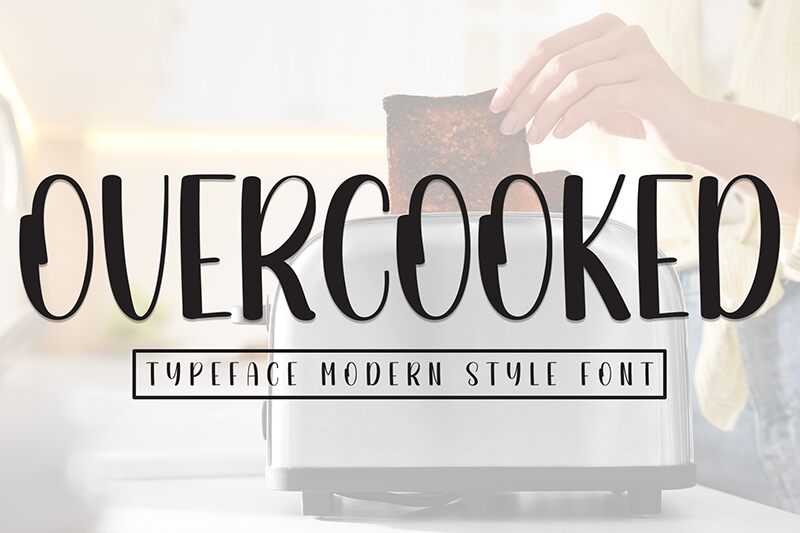
Overcooked
Overcooked font by Andi Moz is a handwritten artistic font characterized by its retro, fun, and eccentric style. Its joyful condensed glyphs offer a lively feel that will make any design more creative. Among all the characteristics that define this font; an exciting tone stands out in all letters making it perfect for playful projects.